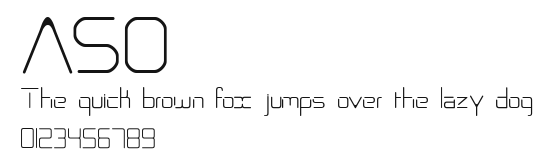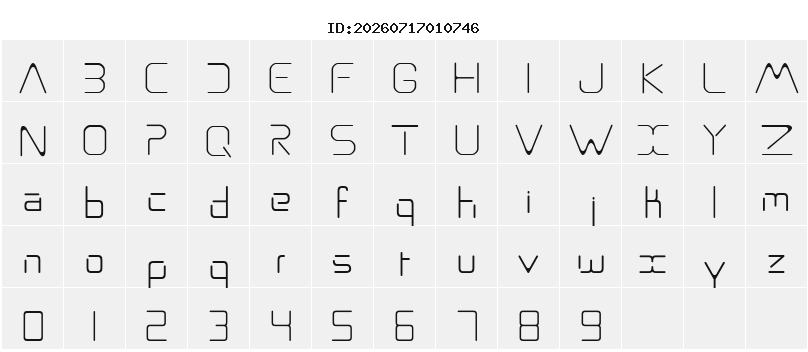
• Font Name: ASO
• Designer: ARTHUR SANDRINI - FELIPE DOLCE - JONATHAN AMOROSO
About ASO.ttf
ASO.ttf is a modern, elegant sans-serif font designed for ultimate readability and visual harmony. Perfect for branding, headlines, web design, and print materials.